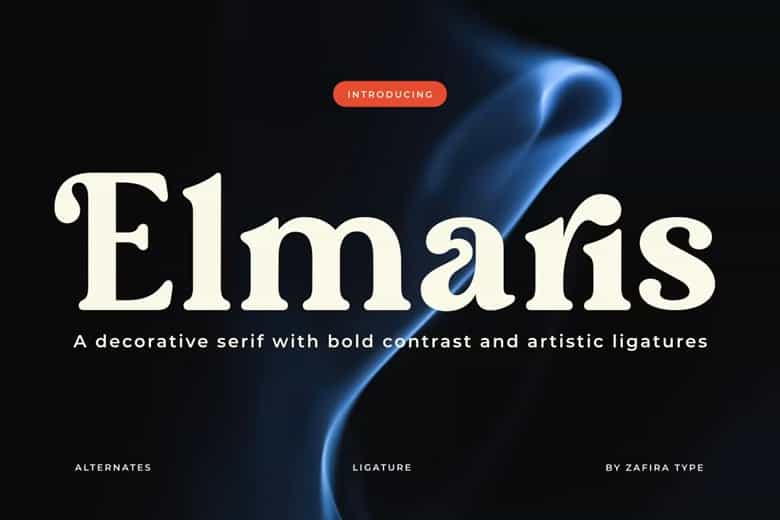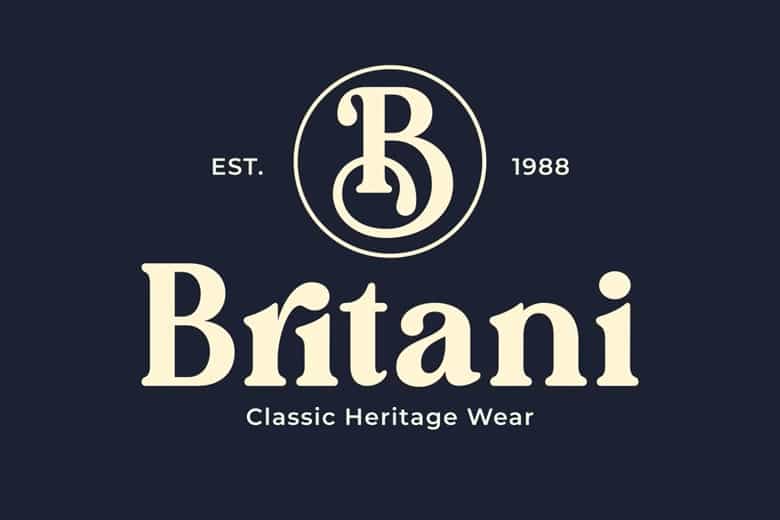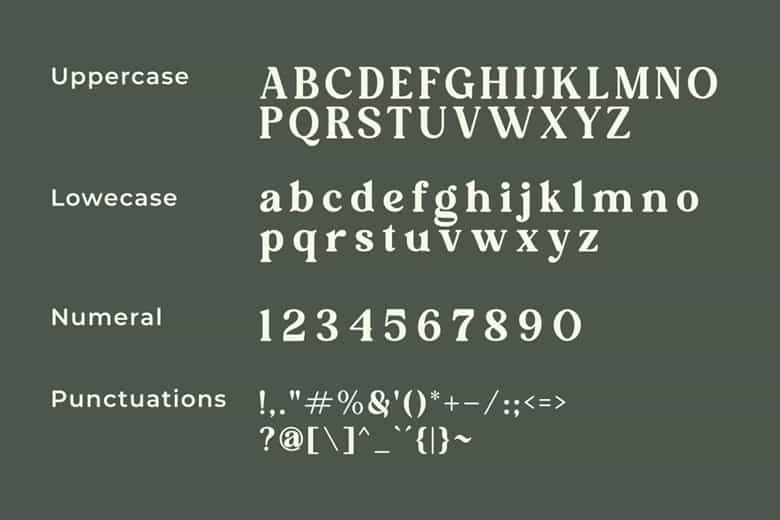
Elmaris is a modern decorative serif font that has a robust contrast and artistic lettering. The Elmaris font was created with dramatic curves and bold ligatures, which add personalities to headlines, logos, and editorial layout. It also has a collection of substitutes and stylistic ligatures which give every word a handcrafted quality.